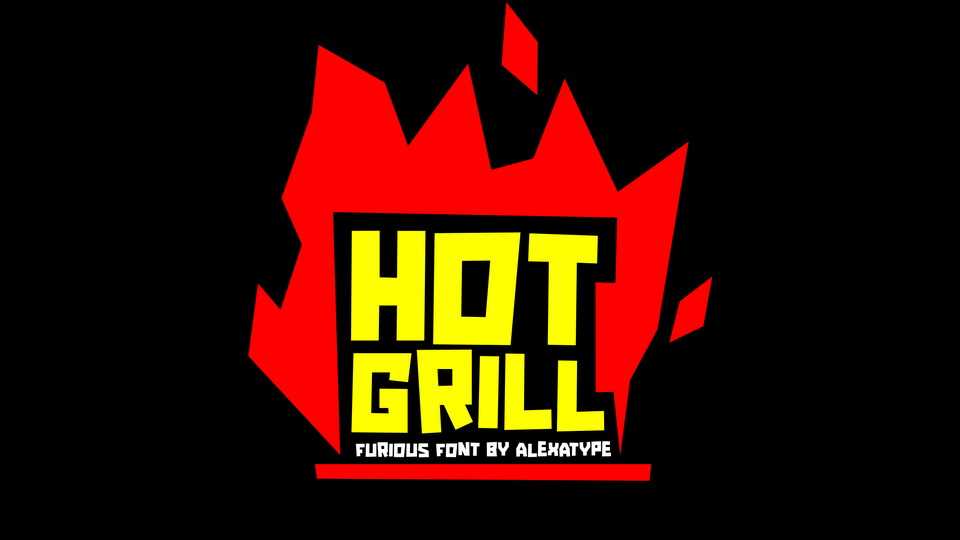
Download Hot Grill font, a powerful, quirky, and strong typeface to emphasize on every word you put on the screen. Hot Grill is perfect for games, poster, movie title, fast food menu, magazine, and so on…